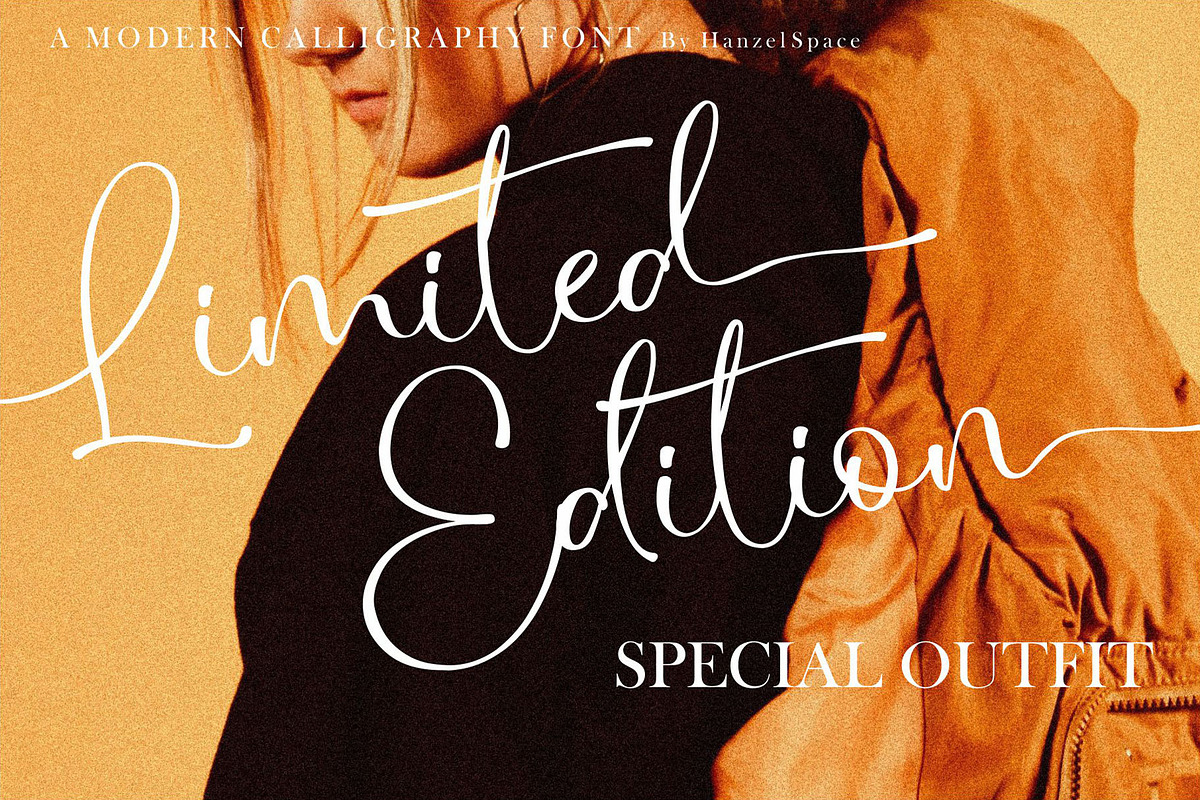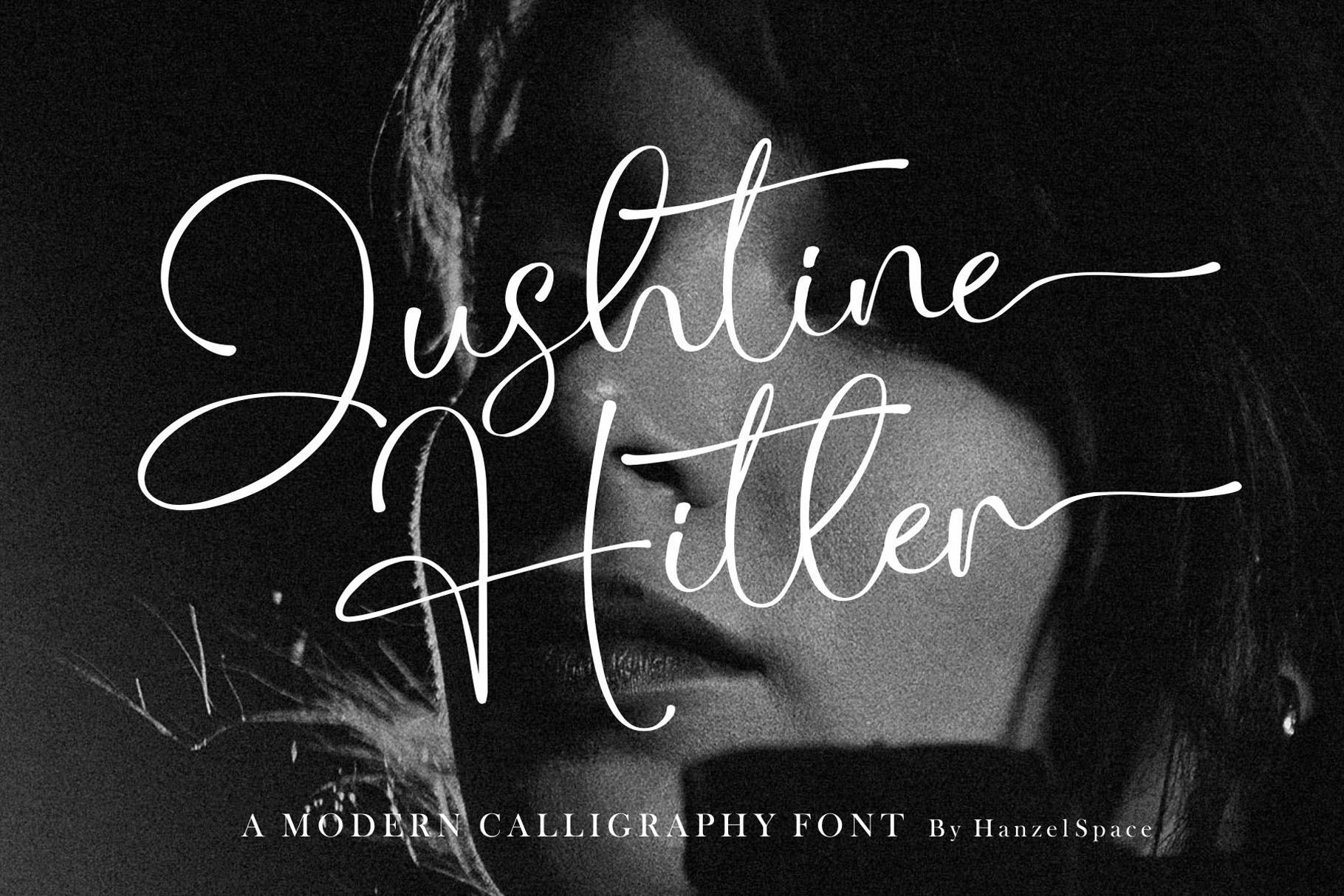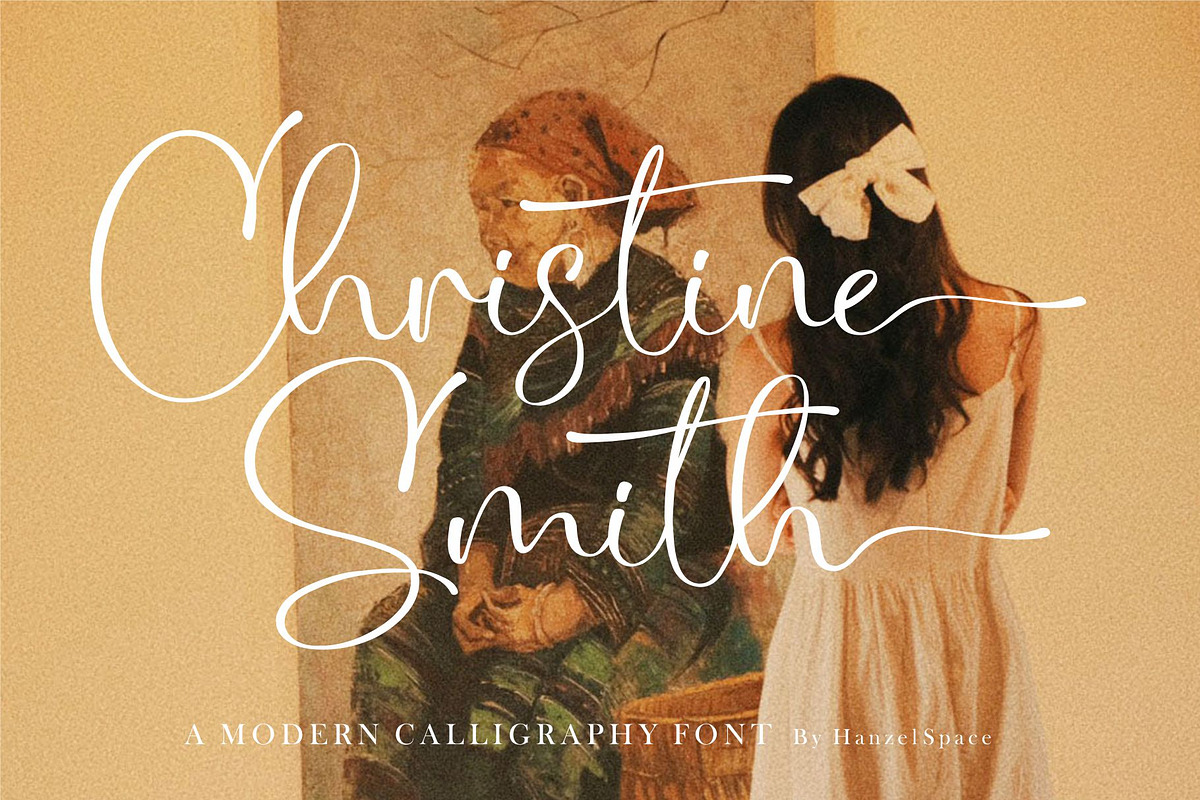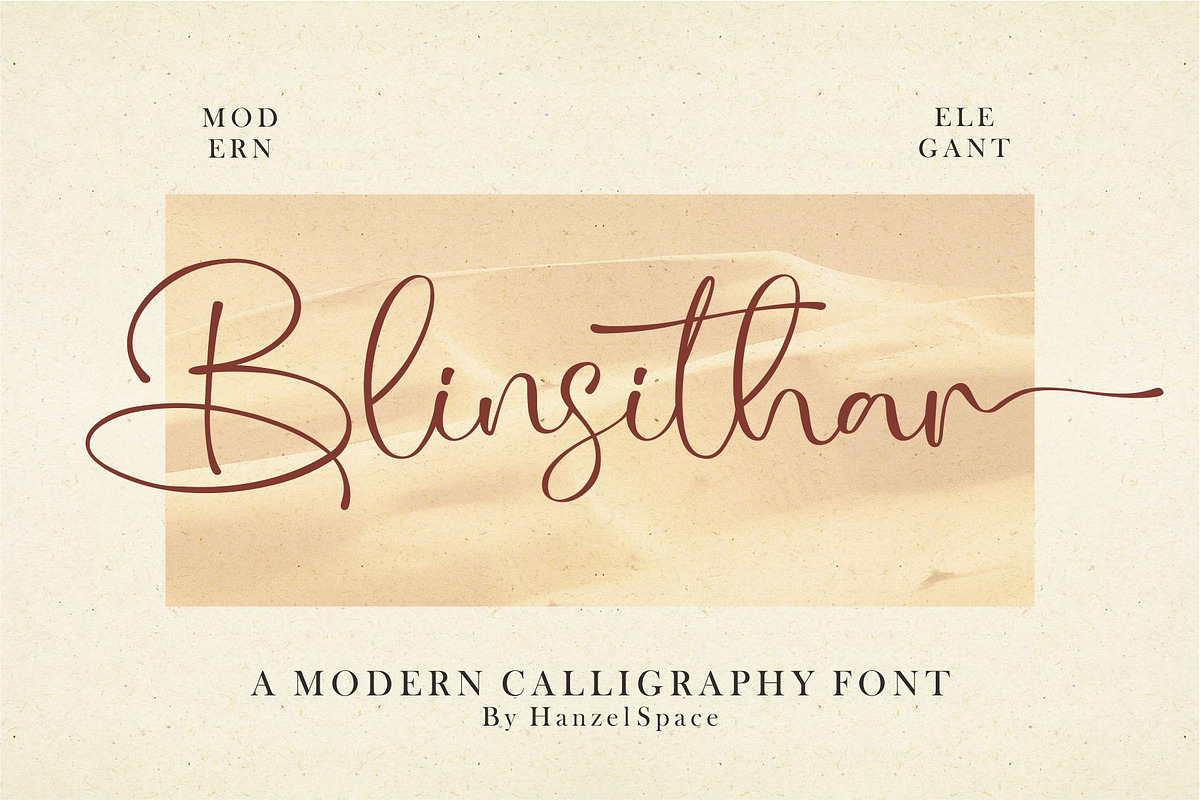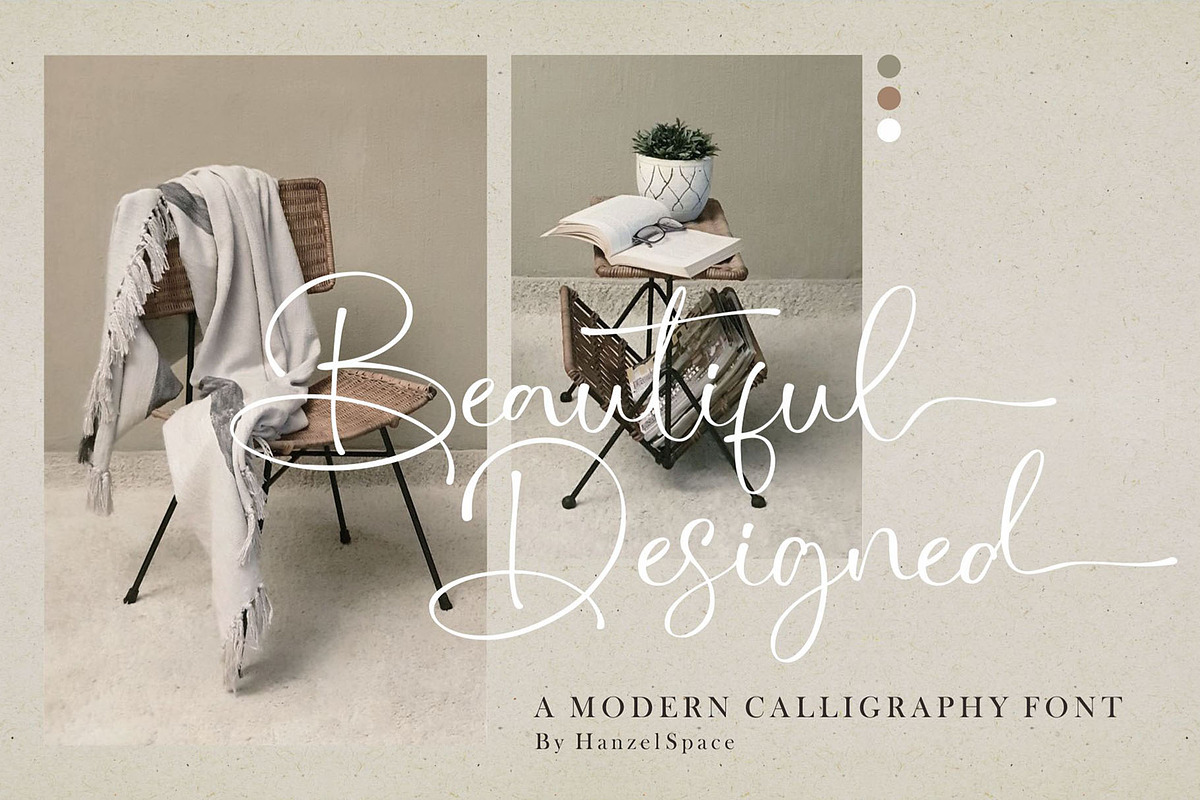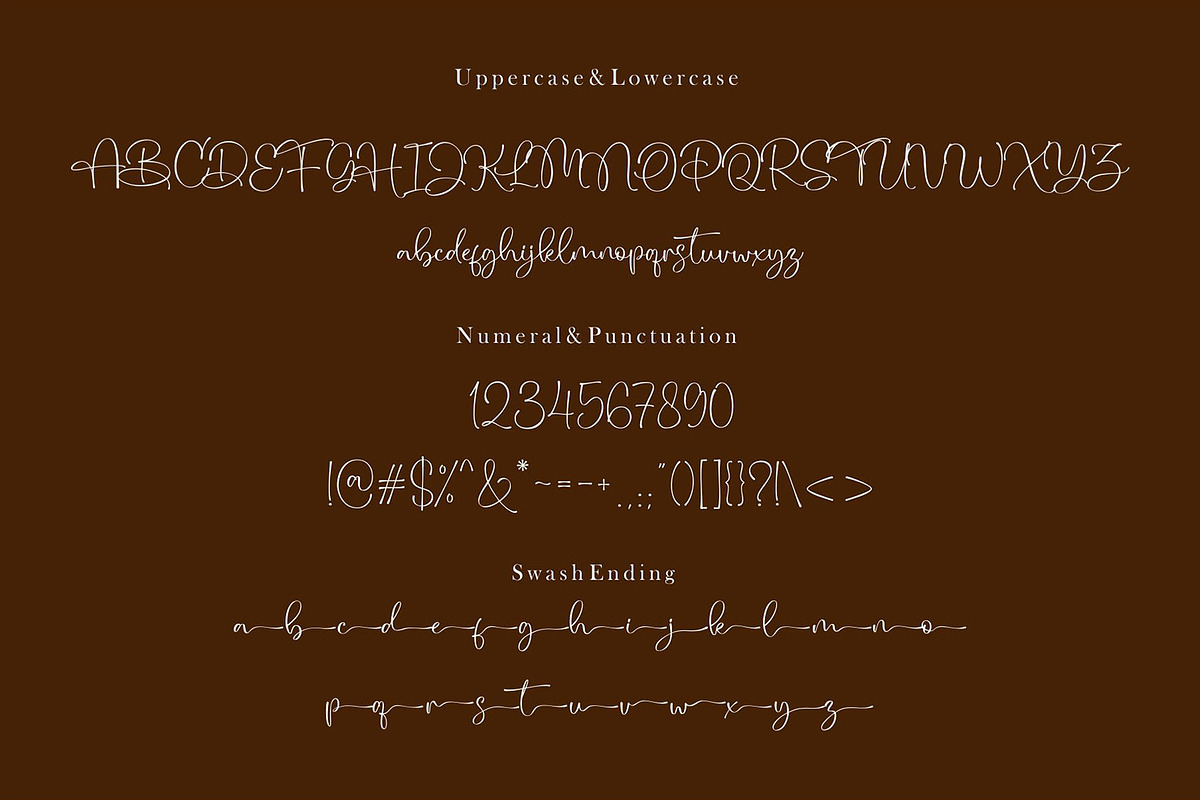
Blinsithar - Modern Calligraphy Font
introduce our font "Blinsithar" font
Happy! finally this font has been released in 2023, with full of new ideas having new character for each letter. It has beautiful curves that enhance the appearance of the font which is no less attractive. Complete with lowercase and uppercase letters, punctuation, swash and ligature. By creating this font, we hope to help your design type needs, to support your business and your business. This font is very suitable for use as branding, logos, slogans, websites, weddings, products and so on.
Full Set of standard alphabet and punctuation
Extra set of ending swashed lowercase
Handwritten ligatures